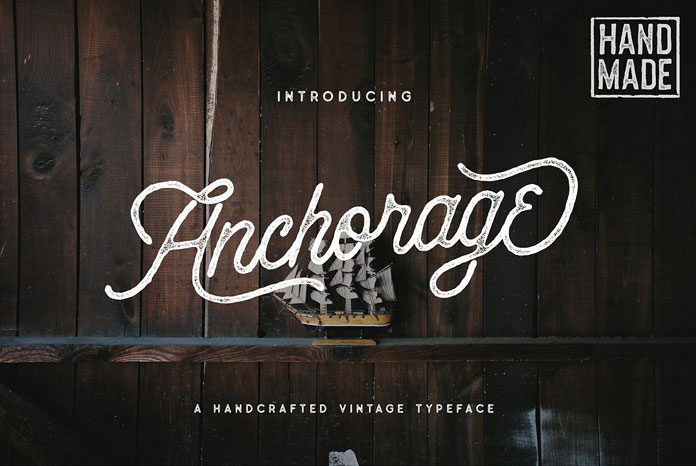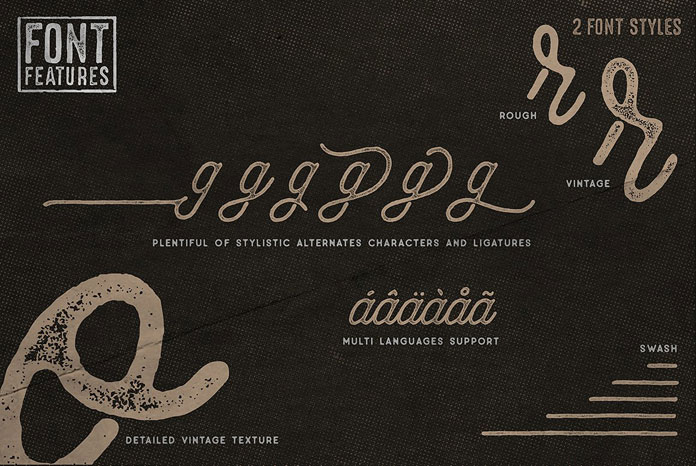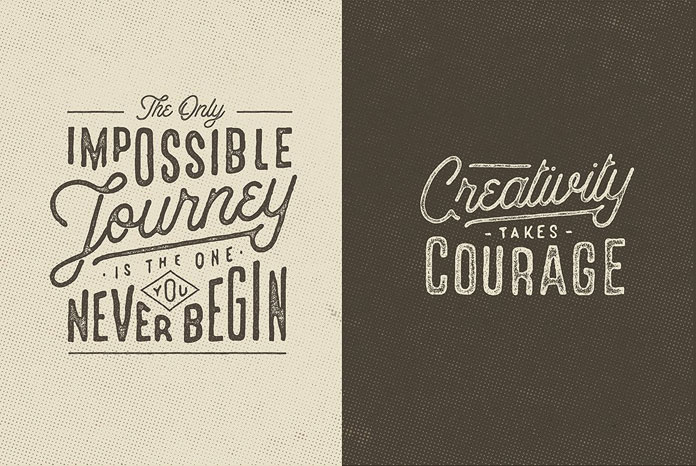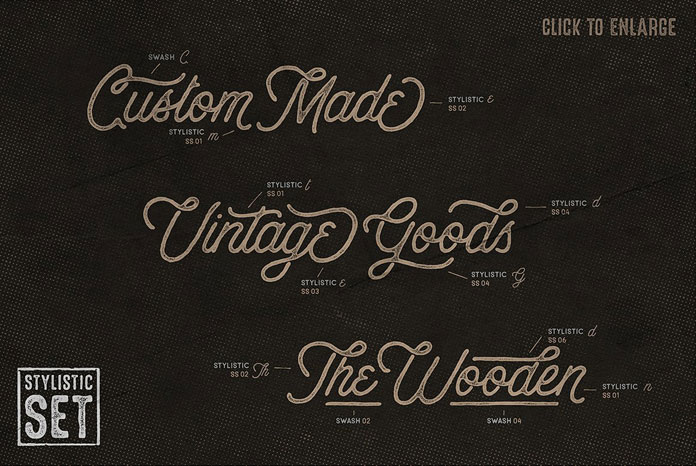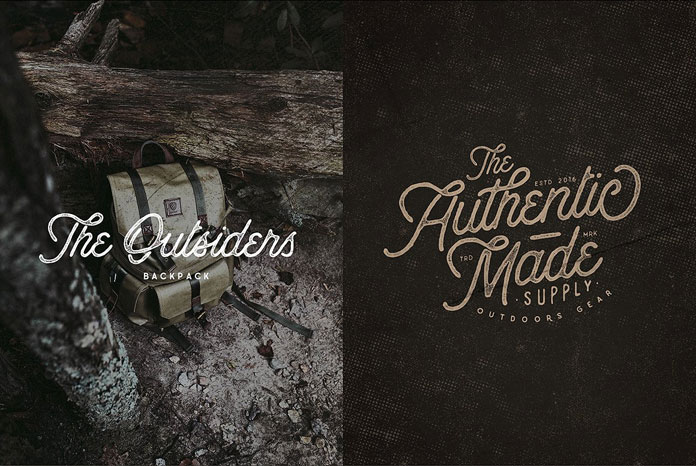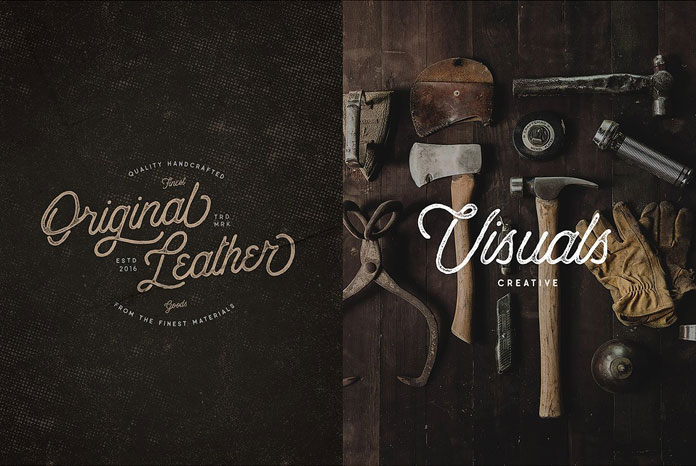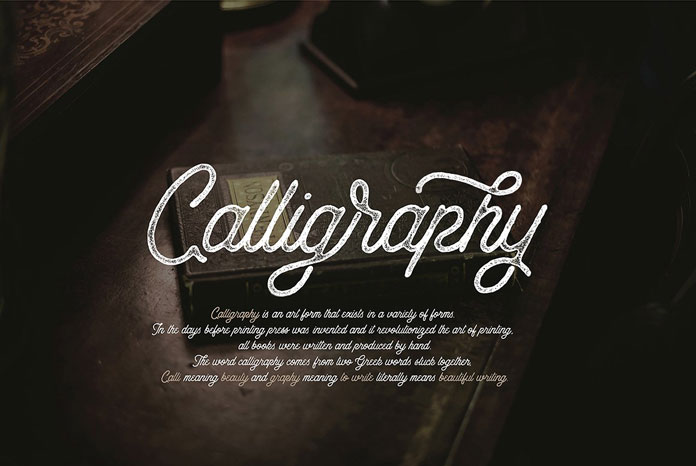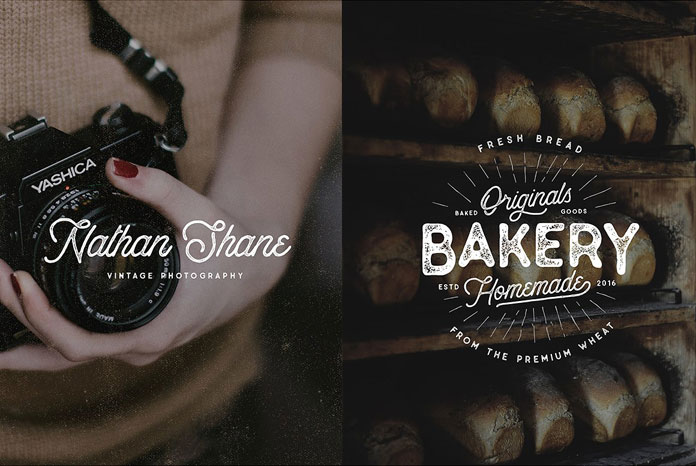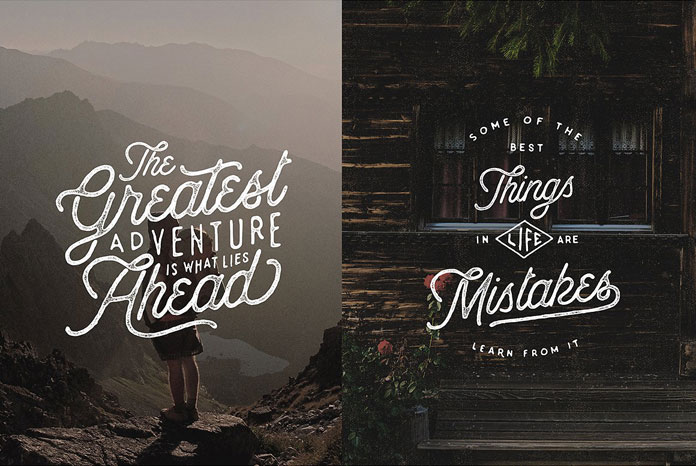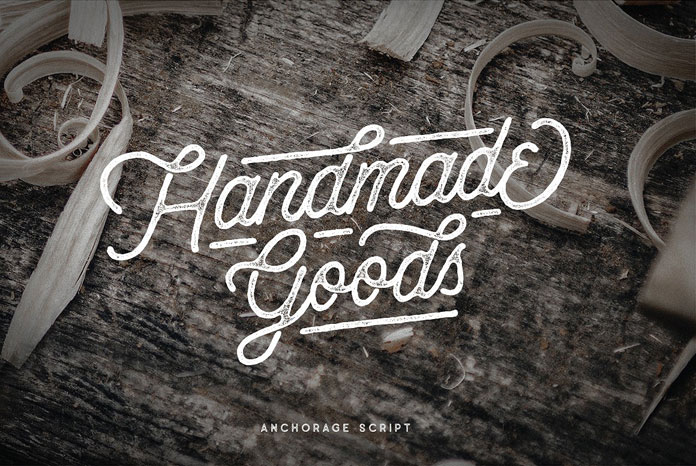
Anchorage Script, two handcrafted vintage font styles with plenty of typographic features.
Carefully crafted by graphic designer Pratama Yudha, Anchorage Script is a stylish font set of two handmade styles plus plenty of swashes and typographic features. The set includes a basic script version and a textured style to give your designs an even more worn look and feel. Both styles can be combined in several ways to create stylish typographic work for quotes, branding, posters, website header graphics, t-shirts, business cards, logos, and other projects. Feel free to read more below the following image.
Discover some of Anchorage Script’s striking features.
Due to the handmade calligraphic process, the fonts convey a welcoming look and feel, which draws inspiration from classic vintage lettering. Both styles are equipped with lots of OpenType features such as alternate characters, terminal forms, ligatures, swashes, punctuation and symbols. The handmade design of Anchorage Script works also great in combination with Pratama Yudha’s Old Pines vintage typeface. For additional information on all options, just click on the following link.